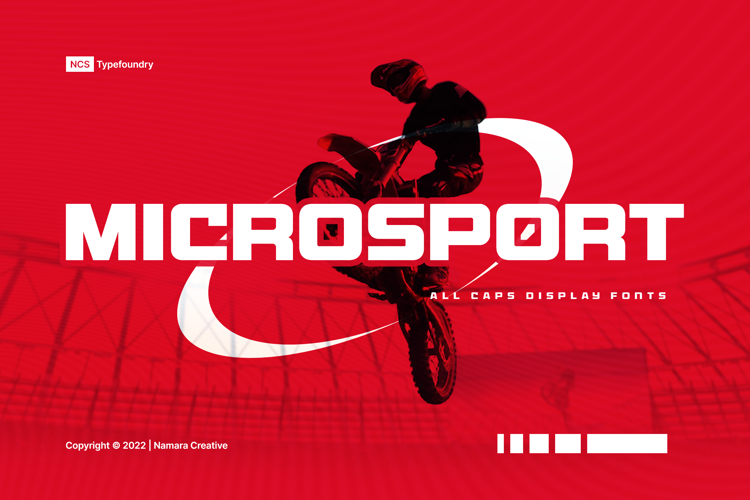
Microsport Font
About Microsport Font
More info from Namara Creative Studio
Bring strong atmosphere in modern style for your projects. This font perfect for headline, general advertising, packaging, sport logo / branding and many other platforms.
Features :
- Alternates, Ligatures & Multilingual Support
- Modern, Sporty & Techno Theme Font
- Almost 300+ Glyphs